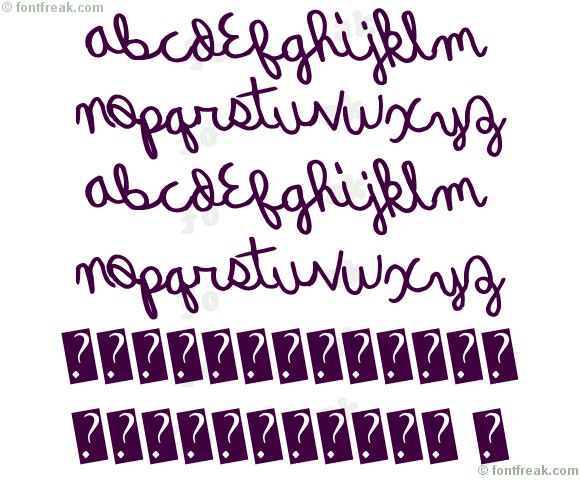
QuickRodeo
QuickRodeo by Xerographer Fonts is a captivating display font that embodies a playful and informal aesthetic, perfect for a variety of creative projects. The font features a unique handwritten style, characterized by its fluid strokes and casual charm. Its slightly irregular letterforms lend it an organic feel, making it stand out in a digital landscape often dominated by rigid typefaces. The stroke weight varies subtly throughout, creating a delightful balance between boldness and lightness, while the generous letter spacing enhances readability.
This font is exceptionally versatile and can elevate numerous design applications. It is particularly suitable for wedding invitations, where its whimsical nature adds a personal touch. Additionally, QuickRodeo can be effectively utilized in movie posters, capturing attention with its distinctive flair. Restaurant menus can benefit from its lively character, enticing customers with a warm and inviting presentation. Moreover, small business branding, especially for cafes or boutiques, can leverage this font to convey a friendly and approachable image.
The target audience for QuickRodeo includes graphic designers, small business owners, and content creators seeking to infuse their work with a sense of personality and warmth. Whether you are crafting a logo or designing a playful social media post, this font can serve as a perfect companion.
What makes QuickRodeo truly stand out is its ability to blend casual elegance with artistic flair. It invites creativity and fosters a connection with audiences, ensuring that your message resonates. For those interested in enhancing their projects with a unique typeface, the QuickRodeo font free download offers an excellent opportunity to explore its charm and versatility.